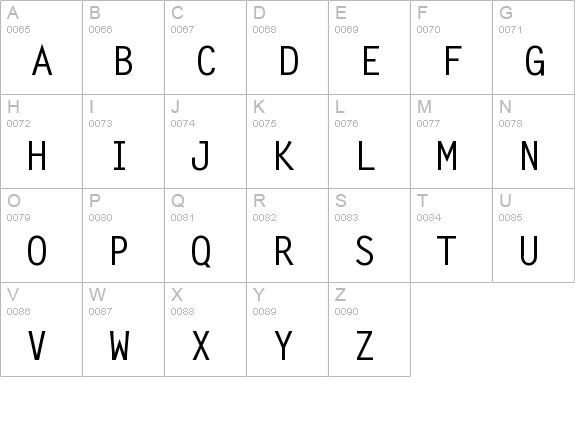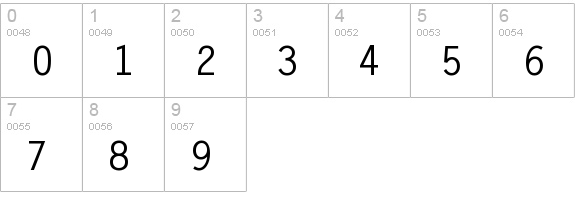
LetterGothic-Medium-Regular is a balanced, medium-weight variant in the LetterGothic typeface family \xE2\x80\x94 well suited to sub-headlines, navigation, and balanced editorial work.
LetterGothic-Medium-Regular is a versatile and modern font that exudes professionalism and clarity. With its clean lines and balanced proportions, this font is perfect for a wide range of design projects, from branding to editorial design. Its medium weight strikes the right balance between being bold and readable, making it an ideal choice for both headlines and body text. The LetterGothic-Medium-Regular font is free to download at FontsMarket.com, allowing designers and creatives to access this high-quality typeface without any cost barriers. Whether you're working on a corporate presentation, a website design, or a print publication, LetterGothic-Medium-Regular is sure to elevate your work with its timeless appeal and legibility. Download it today and add a touch of sophistication to your design projects!